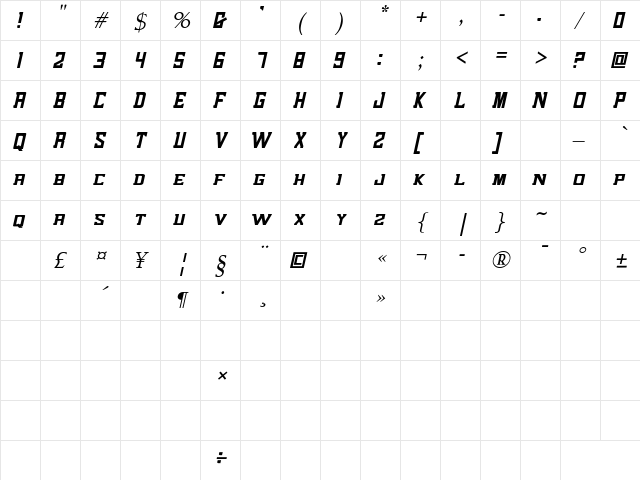
alenikh Italic
Design Context for alenikh Typeface
alenikh offers clean, dependable letterforms without strong stylistic allegiance, making it a practical choice for designers who need flexibility. The slanted form adds forward momentum and visual energy.
Pro Tip: Use alenikh for emphasis, pull quotes, and subheadings where its slanted energy can add rhythm to the layout.